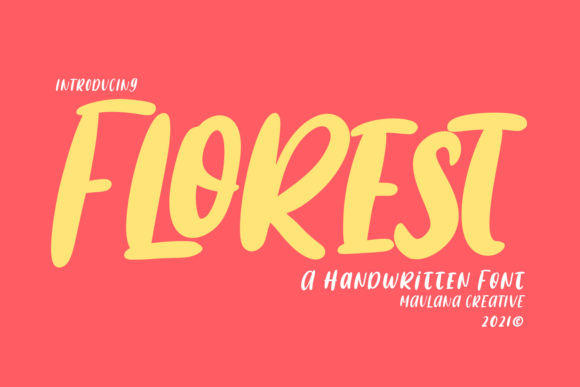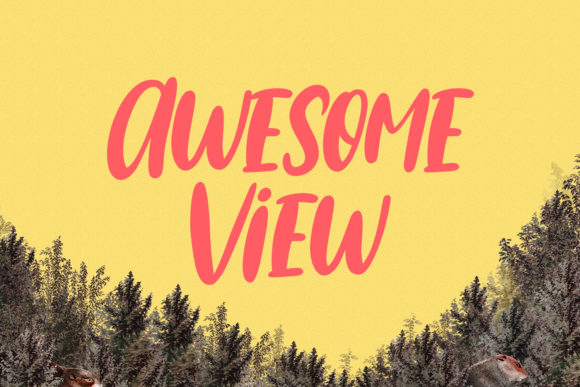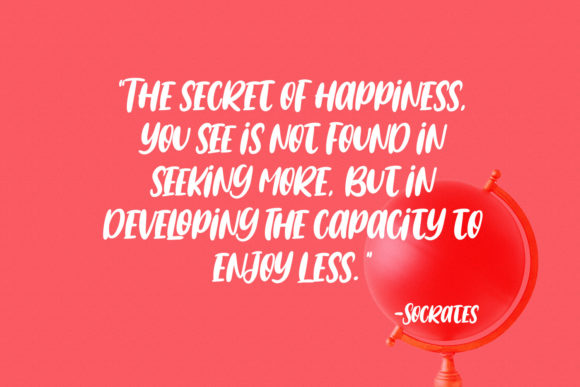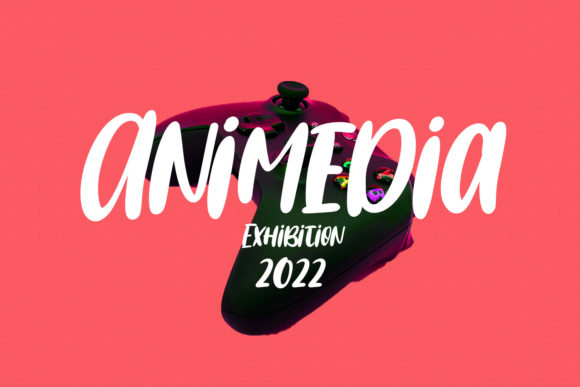
About Florest Font
Florest is a natural and fun handwritten font, masterfully designed with a touch of creativity. It will definitely bring out the beauty in each of your creations!